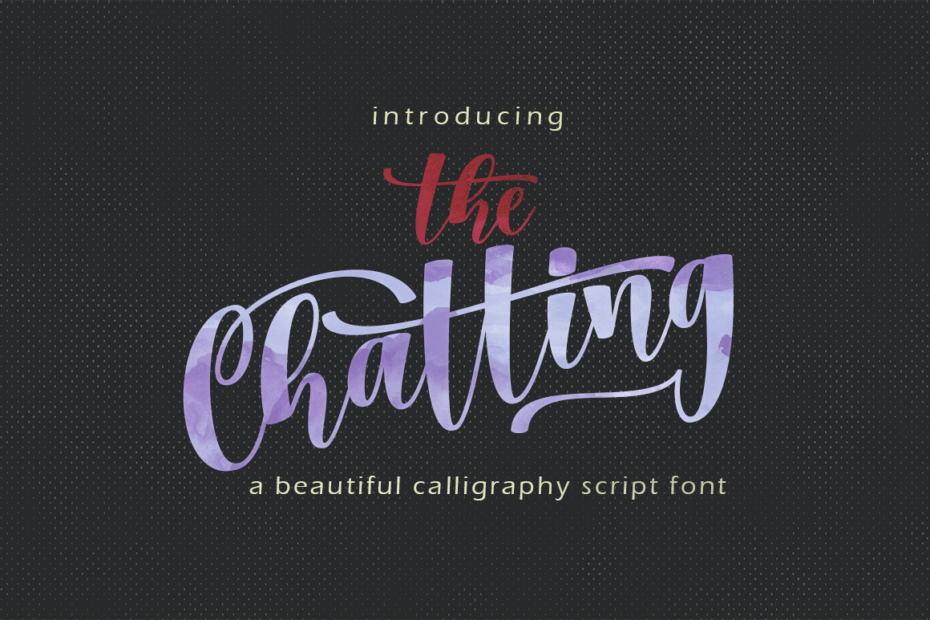
Discovering the Perfect Typography for Your Next Project
Have you ever found yourself staring at a blank page, trying to come up with the perfect font to match your creative vision? You know, that moment when everything clicks and you can finally see your project come to life? For designers, this moment is a thrill, and it’s often the result of discovering a unique and versatile font like the Chatting Font.
Created by the talented Meutuwah, the Chatting Font is a handmade font designed to evoke feelings of happiness and fluidity. Its playful and approachable nature makes it suitable for a wide range of projects, from social media graphics to blog posts and beyond. Whether you’re looking to add a touch of whimsy to your designs or create a cohesive brand identity, the Chatting Font is an excellent choice.
As a designer, finding the right font can be a game-changer. It’s the key to creating a visual identity that resonates with your audience and sets your work apart from the rest. With the Chatting Font, you’ll have a valuable tool at your disposal to bring your creative vision to life and make a lasting impression.
Key Features of Chatting Font
- Font Family: Chatting Font is a unique, hand-drawn font designed for digital communication. It is available in a single font family with multiple weights and styles.
- Unique Characteristics: The Chatting Font features a playful, handwritten style with varying line widths and irregularities, giving it a natural and conversational feel.
Chatting Font Review
Overall, I think Chatting Font is a decent font choice, but it has its strengths and weaknesses.
- The font’s playful and casual vibe makes it perfect for social media, blogs, and other informal platforms.
- Chatting Font has a wide range of weights and styles, making it easy to customize and create visually appealing designs.
- The font’s readability is good, and it works well for both body text and headings.
- The font’s design can come across as a bit too playful or childish, which might not be suitable for all brands or industries.
- Chatting Font lacks a clear, professional feel, making it less suitable for formal documents or presentations.
- The font’s consistency can be inconsistent across different devices and screen resolutions, which may lead to layout issues.
In conclusion, while Chatting Font is a solid choice for casual designs, it’s not the best option for formal or professional projects. It’s a great font for social media, blogs, and other informal platforms, but it may not be the best fit for more formal or corporate designs.
Tips for Getting the Most Out of Chatting Font
Use Chatting Font for informal and conversational text, such as social media posts, chatbot messages, or text-based UI elements.
Combine Chatting Font with other fonts to create a unique and engaging visual style.
Chatting Font is ideal for:
– Social media posts and updates
– Chatbot messages and UI elements
– Informal blog posts and articles
– Text-based advertising and marketing materials